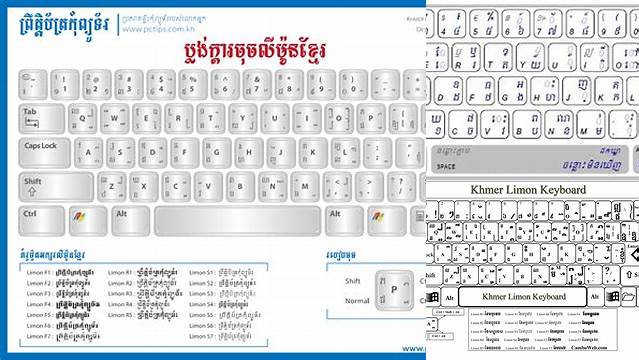
1. Understanding the Popularity of Khmer Font Limon F5
Hey guys! Ever wondered why the Khmer Font Limon F5 is so popular? Well, it's not just about aesthetics; it's about functionality and cultural representation. This font has become a go-to choice for many Cambodians and those working with Khmer script because of its readability and modern design. The Khmer Font Limon F5 strikes a perfect balance between traditional Khmer letterforms and contemporary design principles, making it suitable for a wide range of applications. Whether you're designing a website, creating documents, or working on graphic design projects, this font offers a clean and professional look that is both eye-catching and easy to read. The popularity of Khmer Font Limon F5 also stems from its accessibility; it's readily available for free download, which makes it a practical choice for users who need a high-quality Khmer font without the expense. Moreover, its compatibility with various operating systems, including Windows 10 64-bit, ensures that it can be used seamlessly across different platforms. This ease of use and broad applicability have cemented its place as a favorite among designers and everyday users alike. So, if you're looking for a reliable and stylish Khmer font, Limon F5 is definitely worth checking out! Its widespread use and positive reputation speak volumes about its quality and appeal. The reason why Khmer Font Limon F5 is such a cornerstone in digital typography for Khmer script is its blend of tradition and modernity, its user-friendly availability, and its cross-platform compatibility.
7. Optimizing Text Readability with Khmer Font Limon F5
One of the key reasons to choose the Khmer Font Limon F5 is its exceptional readability. Optimizing text readability is essential for ensuring that your content is easily accessible and engaging for your audience. The Khmer Font Limon F5 is designed with readability in mind, featuring clear and well-defined letterforms that reduce eye strain and improve comprehension. To further enhance readability, consider adjusting the font size and line spacing. A larger font size can make the text easier to read, especially for users with visual impairments. Experiment with different font sizes to find the optimal setting for your specific application. Line spacing, also known as leading, refers to the vertical space between lines of text. Increasing the line spacing can improve readability by preventing the lines from appearing too crowded. A general guideline is to use a line spacing of 1.2 to 1.5 times the font size. Another important factor is contrast. Ensure that there is sufficient contrast between the text and the background. Dark text on a light background is generally the easiest to read, but you can also use light text on a dark background if it suits your design. Just make sure that the contrast is high enough to prevent eye strain. The Khmer Font Limon F5 provides a solid foundation for optimizing text readability, but by adjusting the font size, line spacing, and contrast, you can create a more comfortable and engaging reading experience for your audience. These simple adjustments can make a big difference in how well your content is received.